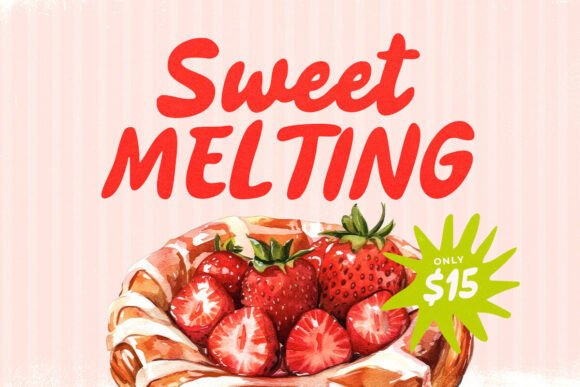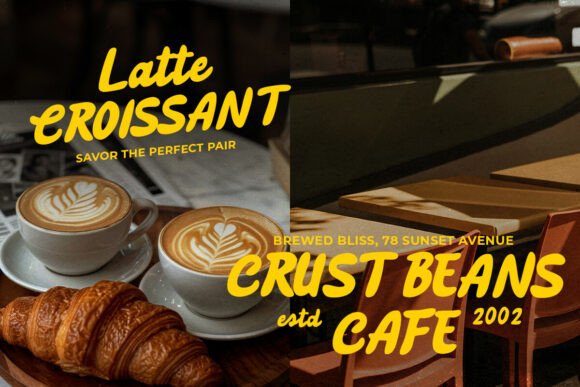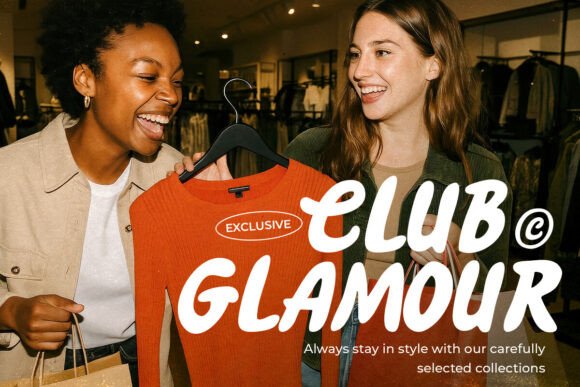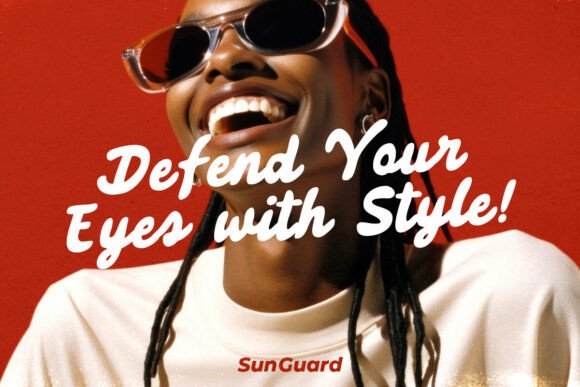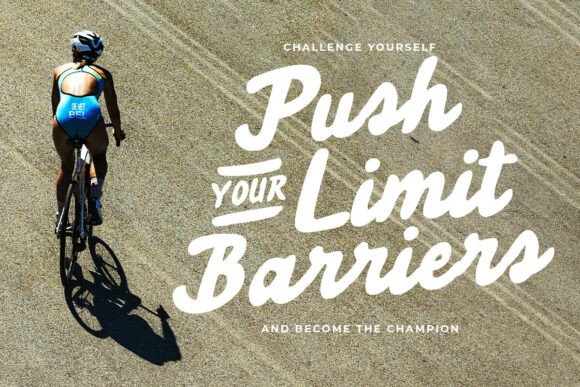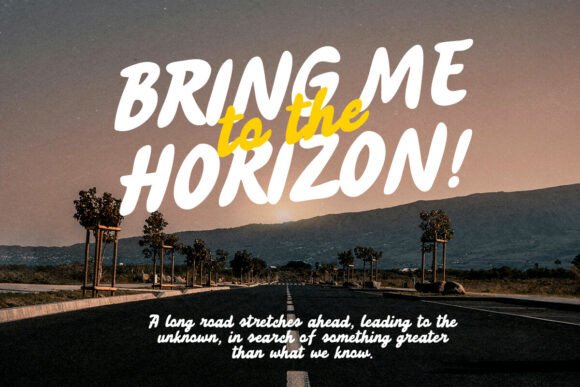
Introducing Darkey Font: A Bold Handwritten Font for Creative Projects
Are you looking for a unique and eye-catching font to elevate your designs? Look no further than Darkey Font, a bold handwritten font that is perfect for a variety of creative projects. In this article, we’ll take a closer look at the features and benefits of Darkey Font, and explore how you can use it to take your designs to the next level.
What is Darkey Font?
Darkey Font is a bold handwritten font that comes in two versions: All Caps and Script. This versatile font is designed to be used together, with the All Caps version providing a strong and statement-making font, and the Script version adding a touch of elegance and sophistication. Whether you’re working on a branding project, creating a quote or tagline, or designing a logotype, Darkey Font is the perfect choice.
Key Features of Darkey Font
- Bold and eye-catching: Darkey Font is a bold and attention-grabbing font that is perfect for making a statement.
- Two versions: The font comes in two versions: All Caps and Script, allowing you to mix and match to create a unique look.
- Handwritten style: Darkey Font has a natural, handwritten style that adds a touch of personality to your designs.
- Versatile: The font is suitable for a wide range of design projects, including branding, quotes, logotypes, and taglines.
Benefits of Using Darkey Font
So why choose Darkey Font for your next design project? Here are just a few benefits of using this versatile font:
- Adds personality: Darkey Font adds a touch of personality and whimsy to your designs, setting them apart from more traditional fonts.
- Easy to read: Despite its bold style, Darkey Font is easy to read, making it perfect for use in a variety of contexts.
- Customizable: With two versions to choose from, you can mix and match to create a unique look that suits your brand or design style.
- Time-saving: Darkey Font is a pre-designed font, saving you time and effort in creating a unique font from scratch.
How to Use Darkey Font in Your Designs
So how can you use Darkey Font in your designs? Here are a few ideas to get you started:
- Branding: Use Darkey Font as a logo font or as part of a brand identity package to add a touch of personality to your brand.
- Quotes and posters: Darkey Font is perfect for use in quotes and posters, adding a bold and eye-catching element to your design.
- Logotypes: Use Darkey Font to create a unique and memorable logotype that sets your brand apart.
- Taglines: Add a touch of personality to your taglines with Darkey Font, making them more memorable and engaging.
Tips for Getting the Most Out of Darkey Font
To get the most out of Darkey Font, here are a few tips to keep in mind:
- Experiment with different combinations: Try pairing the All Caps and Script versions of Darkey Font to create a unique look.
- Play with color: Darkey Font looks great in a variety of colors, so don’t be afraid to experiment and find the perfect hue for your design.
- Use it sparingly: While Darkey Font is bold and eye-catching, it can be overwhelming if used too much. Use it sparingly to create a focal point in your design.
Darkey Font is a bold and versatile handwritten font that is perfect for a variety of creative projects. With its two versions, All Caps and Script, you can mix and match to create a unique look that suits your brand or design style. Whether you’re working on a branding project, creating a quote or tagline, or designing a logotype, Darkey Font is the perfect choice. So why not give it a try and see how it can elevate your designs?